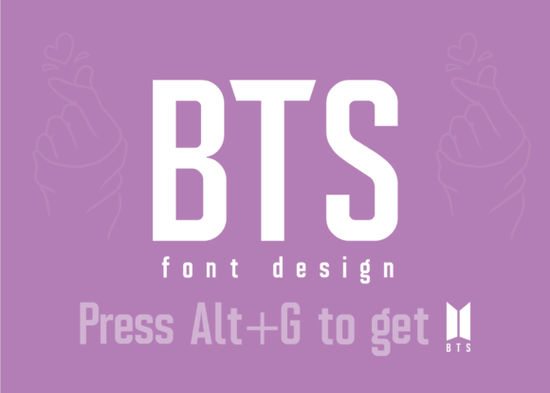
If you're looking for a font that feels relaxed but still looks polished, BTS Font delivers exactly that. It’s a casual display typeface with clean lines and simple shapes, perfect for projects where you want to stand out without overcomplicating things. Whether you’re designing social media posts, creating merch for print-on-demand, or building a brand identity, this font adds a laid-back charm that works in many contexts.
What makes BTS Font stand out?
BTS Font isn’t flashy, but it has personality. Its balanced proportions and soft edges give it a friendly, approachable vibe ideal for brands or creators who want to feel authentic. The letterforms are straightforward, making them easy to read even at smaller sizes, while still being bold enough to grab attention in headlines or logos.
It’s especially useful when you need a design to feel personal, not corporate. Think of it as the kind of font you’d use for a coffee shop name, a boutique clothing label, or a weekend event flyer. It doesn’t shout, but it does make an impression.
Where can you use BTS Font?
This font works across many creative projects:
- Social media graphics – Perfect for Instagram stories, Pinterest pins, or Facebook posts where a casual tone fits.
- Print-on-demand designs – Great for T-shirts, mugs, tote bags, and stickers with a relaxed aesthetic.
- Logo designs – Ideal for small businesses, artists, or lifestyle brands wanting a modern yet unpretentious look.
- Invitations and flyers – Adds warmth to event announcements, especially for casual gatherings like brunches or pop-up markets.
You’ll find it fits well in both digital and physical formats, which is a big plus if you’re juggling multiple platforms.
How does BTS Font compare to similar fonts?
If you’ve explored other casual display fonts, you might have come across options like Black Stencil Font, Cartius Font, or Greek Jersey Font. Each has its own flavor Black Stencil leans more urban, Cartius feels slightly more structured, and Greek Jersey brings a retro sporty energy.
BTS Font sits somewhere in between: less rigid than Cartius, less edgy than Black Stencil, and less athletic than Greek Jersey. It’s more neutral and adaptable, making it a solid choice when you want something that blends in without blending out.
For those who love a playful, stacked style, JP Sporty Stacked Font offers a different twist more dynamic and layered. But if you prefer simplicity with a hint of charm, BTS keeps things clean and consistent.
If you’re into college-style vibes with a modern touch, Brown College Font might be close in spirit, though it leans more toward vintage typography. BTS is more current and minimal by comparison.
Why designers and small creators love it
One reason BTS Font is popular among crafters and small business owners is how easy it is to use. You don’t need advanced design skills to make it work. Just pair it with a simple sans-serif or a clean background, and it looks professional right away.
It also pairs well with other fonts. Try combining it with a light-weight serif for contrast, or use it alongside a minimalist icon set to create cohesive branding elements.